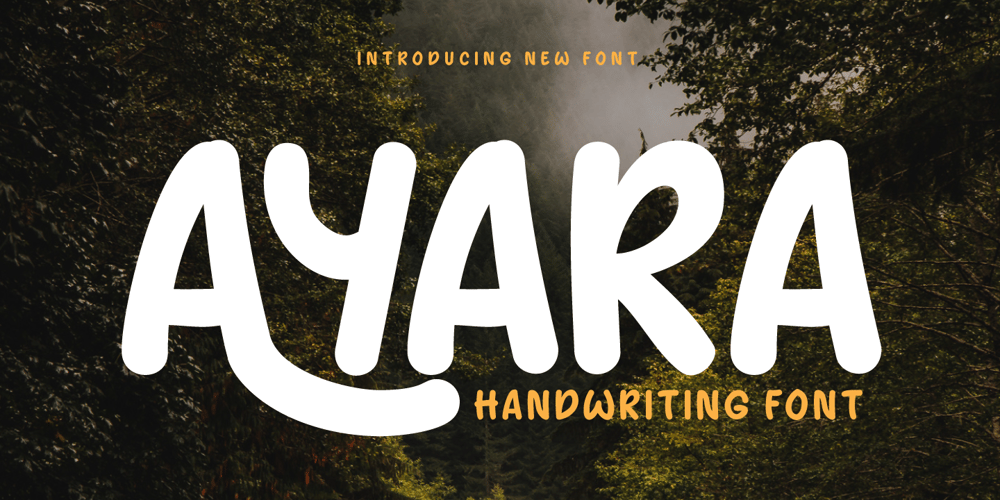
Ayara Font Family was designed by Rozikan and published by Twinletter. Ayara contains 1 styles and family package options. Introducing “AYARA Font” – a harmonious fusion of traditional handwriting and contemporary design. Whether you’re working on invitations, posters, or branding materials, AYARA Font effortlessly adds a unique handwritten style that instantly grabs attention.What’s Included : File font All glyphs Iso Latin 1 Alternate, Ligature Simple installations PUA Encoded Characters – Fully accessible without additional design software. Fonts include Multilingual support